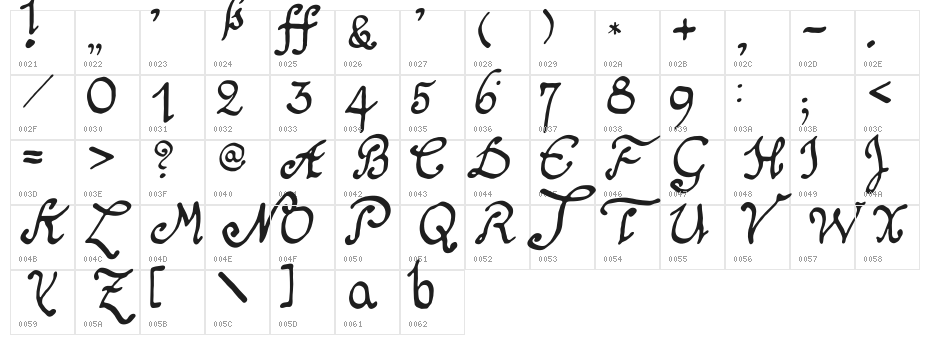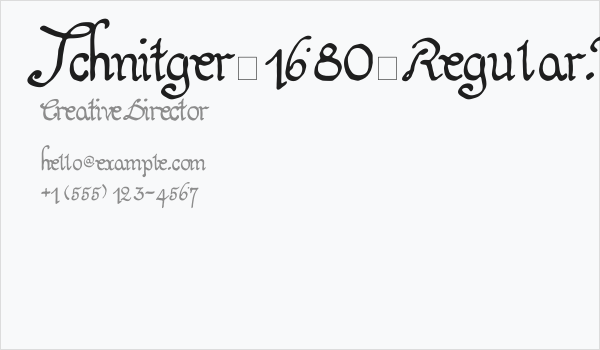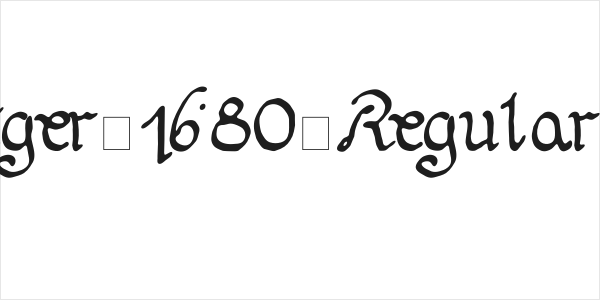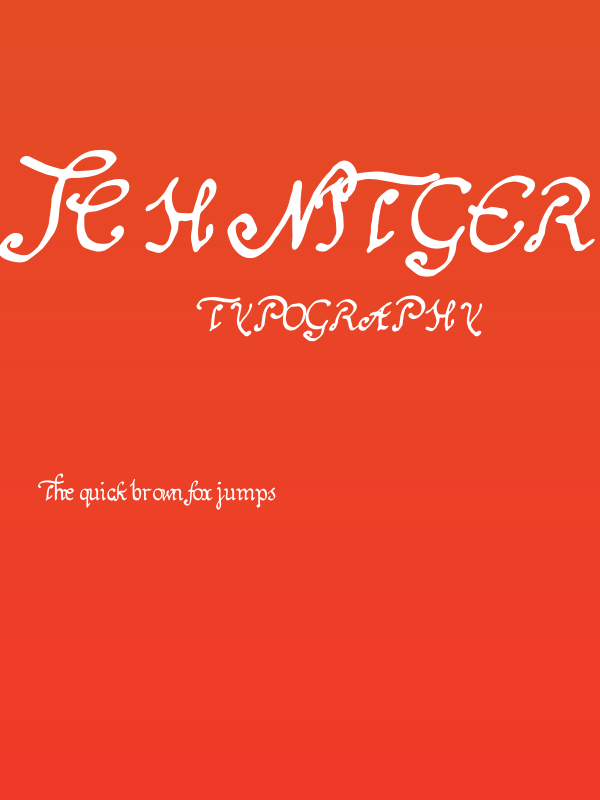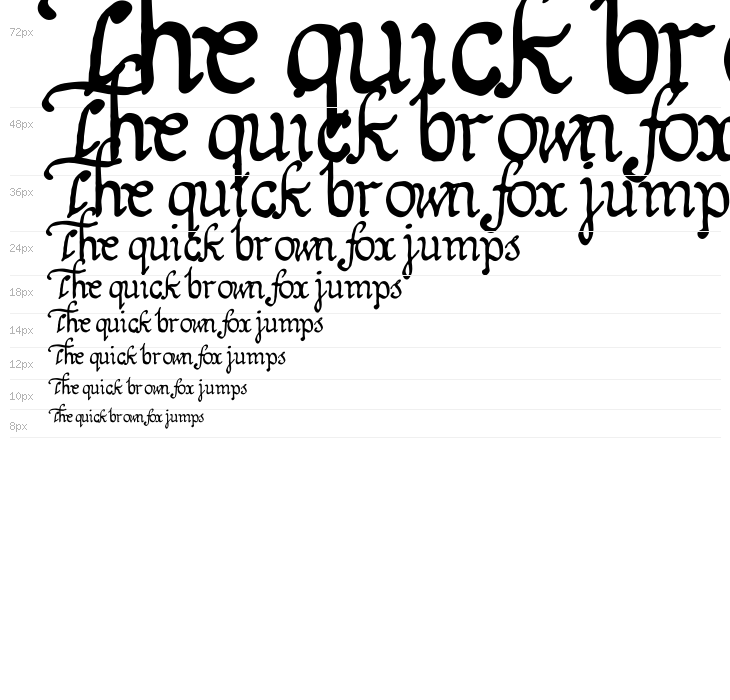
Schnitger_1680_Regular.TTF Font
Schnitger_1680_Regular.TTF Description
This font exudes a historical and classical charm, reminiscent of 17th-century script styles. The characters are elegantly crafted with a flowing, cursive design that features ornate loops and flourishes. The uppercase letters are particularly decorative, with intricate details that suggest a handwritten quality. The lowercase letters maintain a consistent style, offering a harmonious blend of readability and artistic flair. The numerals and special characters are equally stylized, contributing to the font's overall cohesive appearance. This font is ideal for projects that require a touch of antiquity and sophistication.
| Use Case | Headlines, Invitations, Certificates |
| Proposed Projects | Ideal for historical documents, invitations, certificates, and branding that seeks an antique or classical aesthetic. |